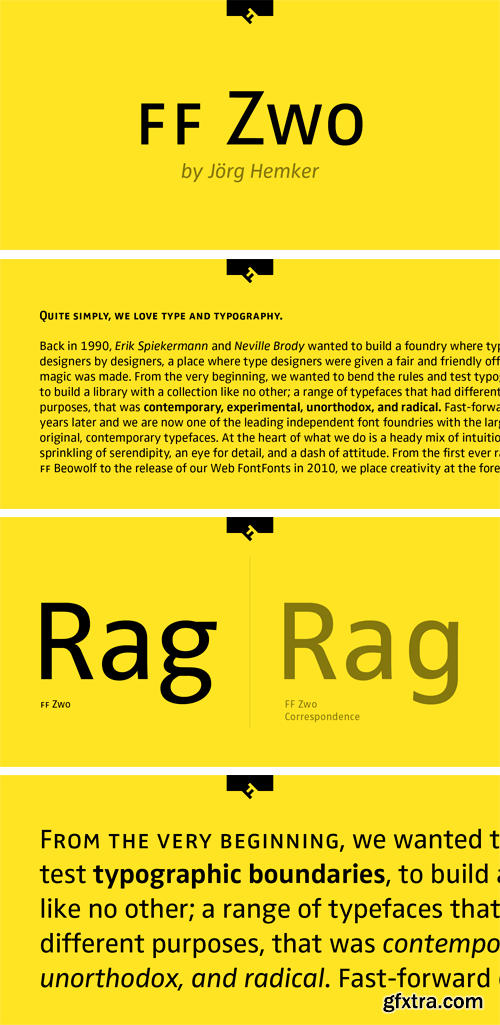
German type designer Jörg Hemker created this sans FontFont in 2002. The family has 16 weights, ranging from Extra Light to Black (including italics) and is ideally suited for advertising and packaging, editorial and publishing, logo, branding and creative industries as well as sports.
FF Zwo provides advanced typographical support with features such as ligatures, small capitals, alternate characters, case-sensitive forms, fractions, and super- and subscript characters. It comes with a complete range of figure set options – oldstyle and lining figures, each in tabular and proportional widths.